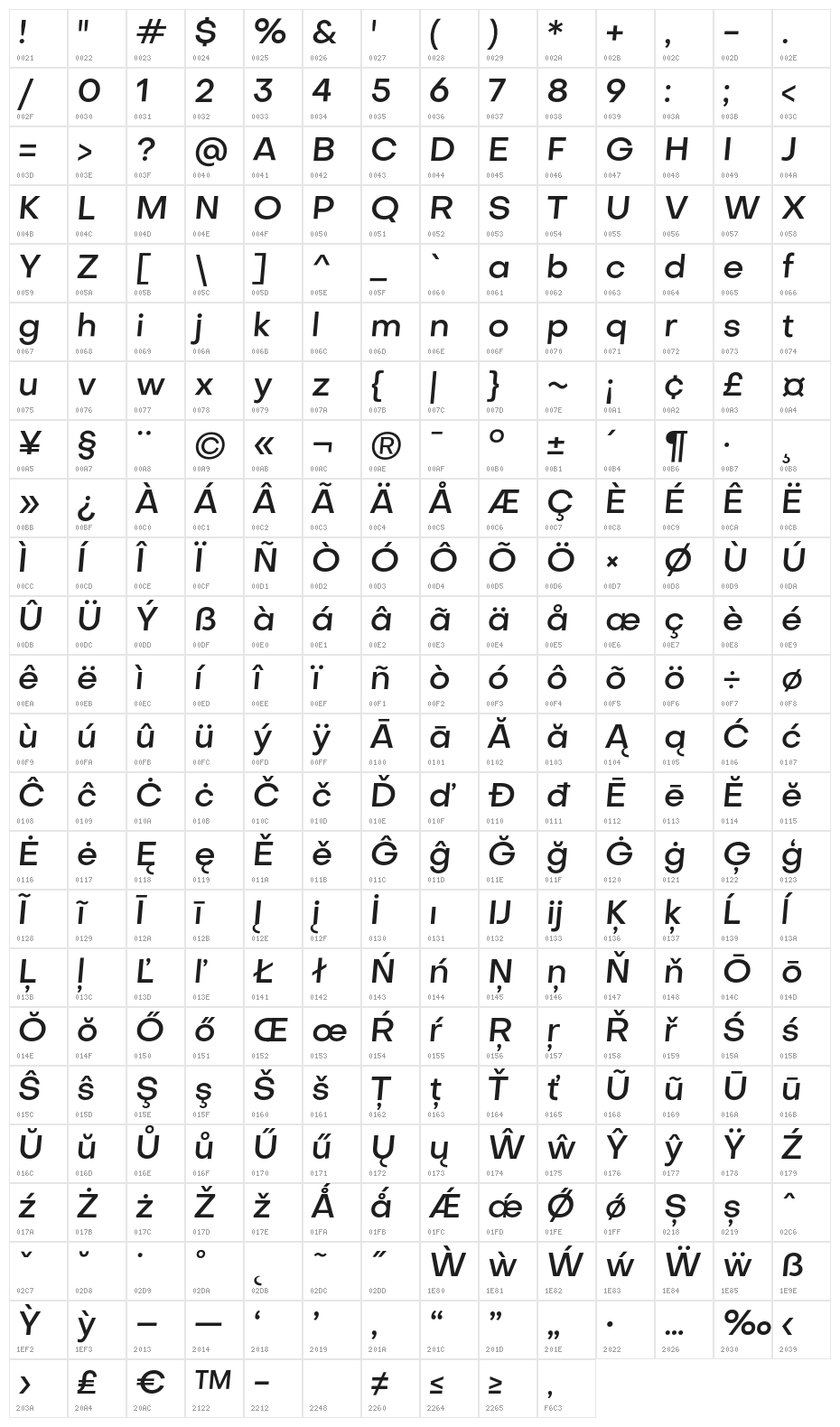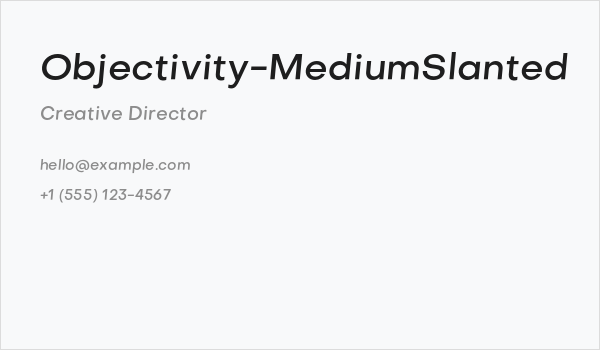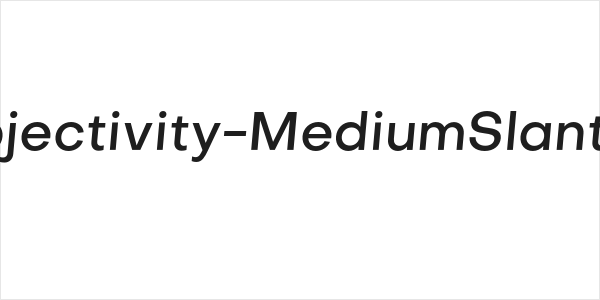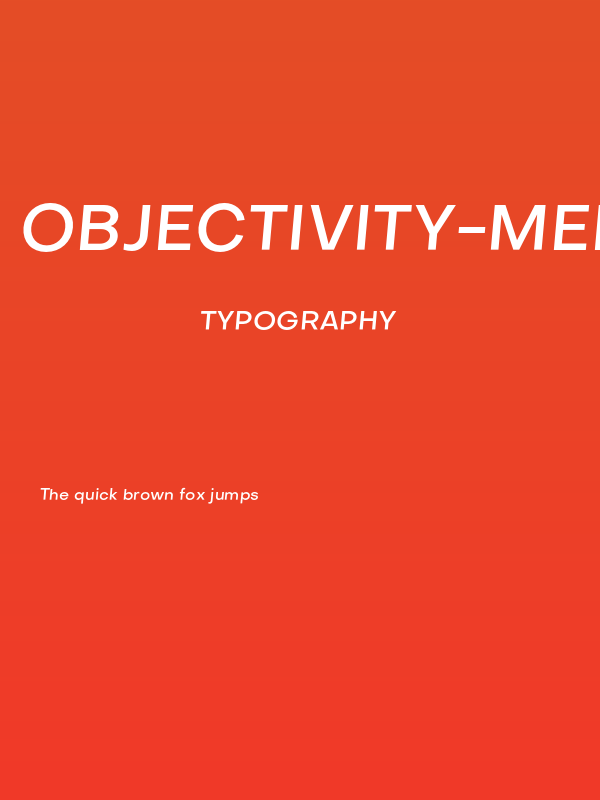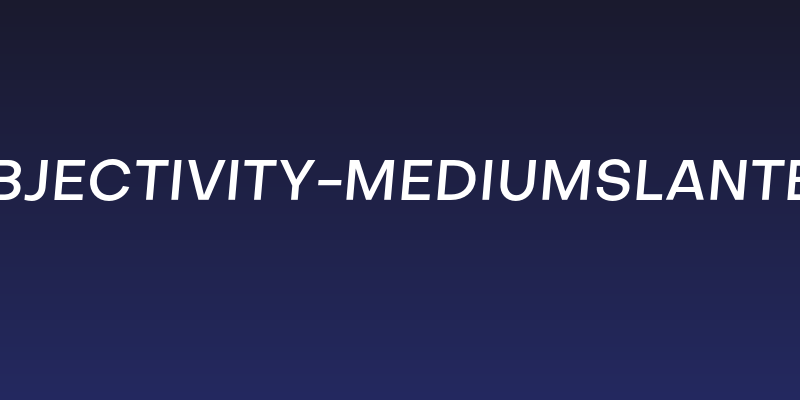
Objectivity-MediumSlanted Font
Objectivity-MediumSlanted Description
This font features a clean and modern sans-serif design with a slight slant, giving it a dynamic and contemporary feel. The characters are well-proportioned with a consistent stroke width, providing a balanced and harmonious appearance. The uppercase letters are bold and assertive, while the lowercase letters maintain a friendly and approachable look. The numerals are clear and easy to read, making them suitable for various applications. Special characters are included, ensuring versatility in usage. Overall, this font combines functionality with style, making it ideal for a wide range of design projects.